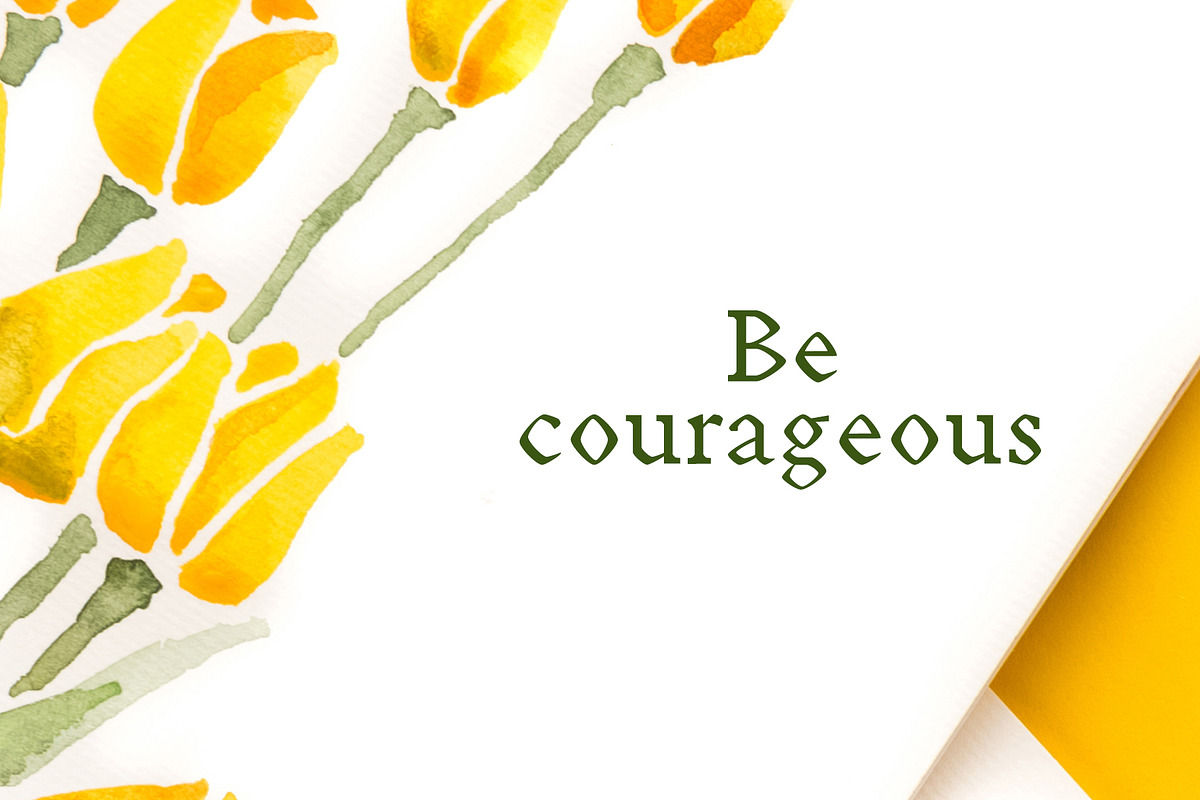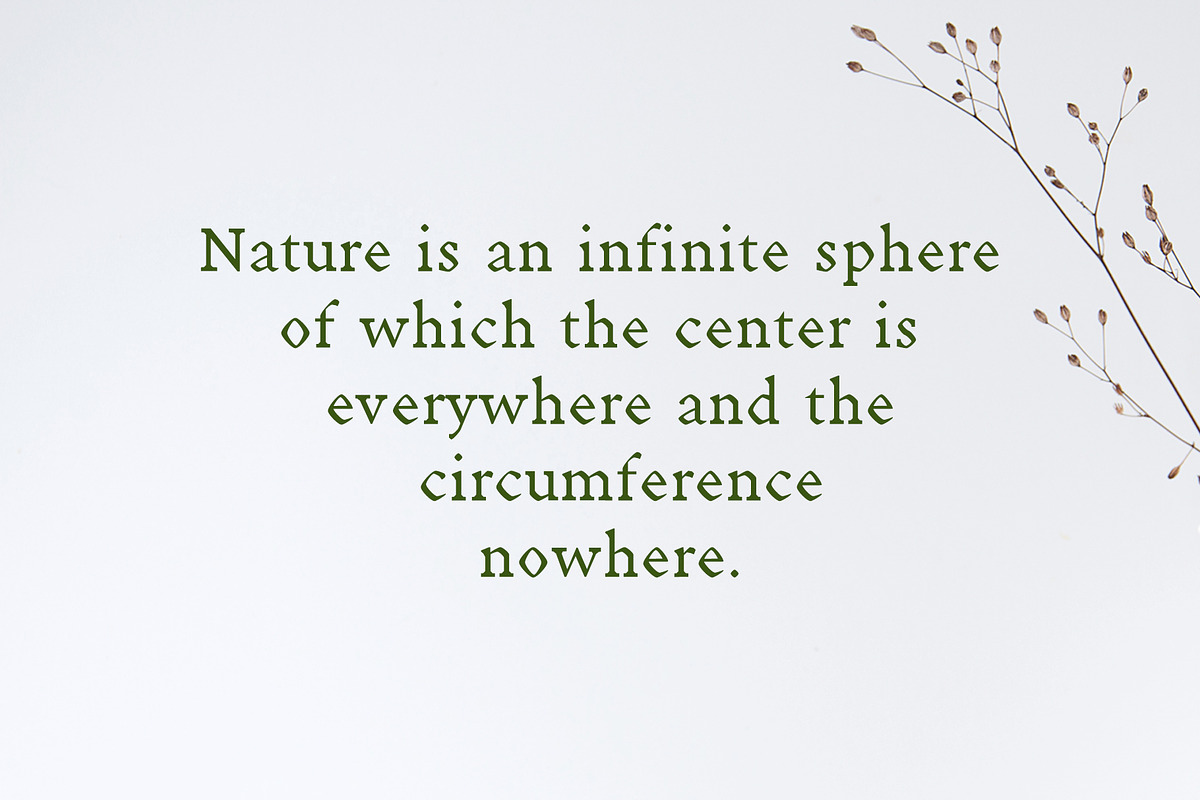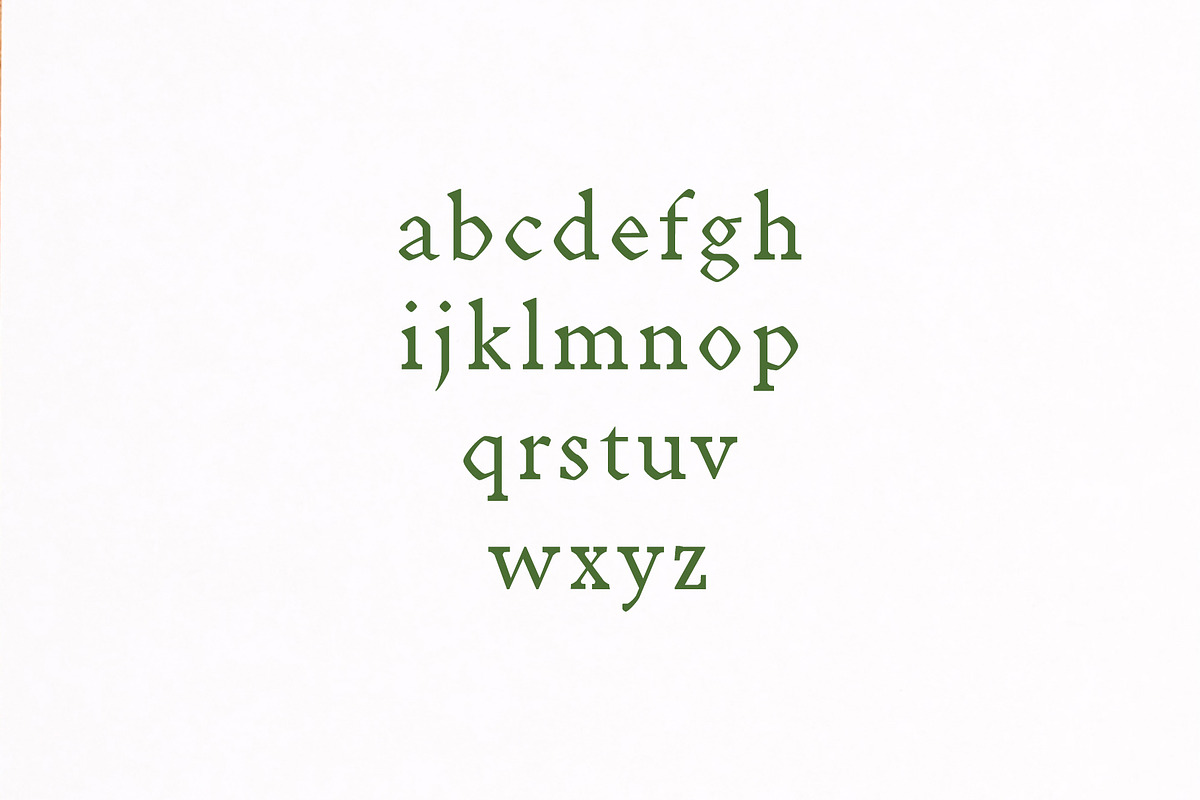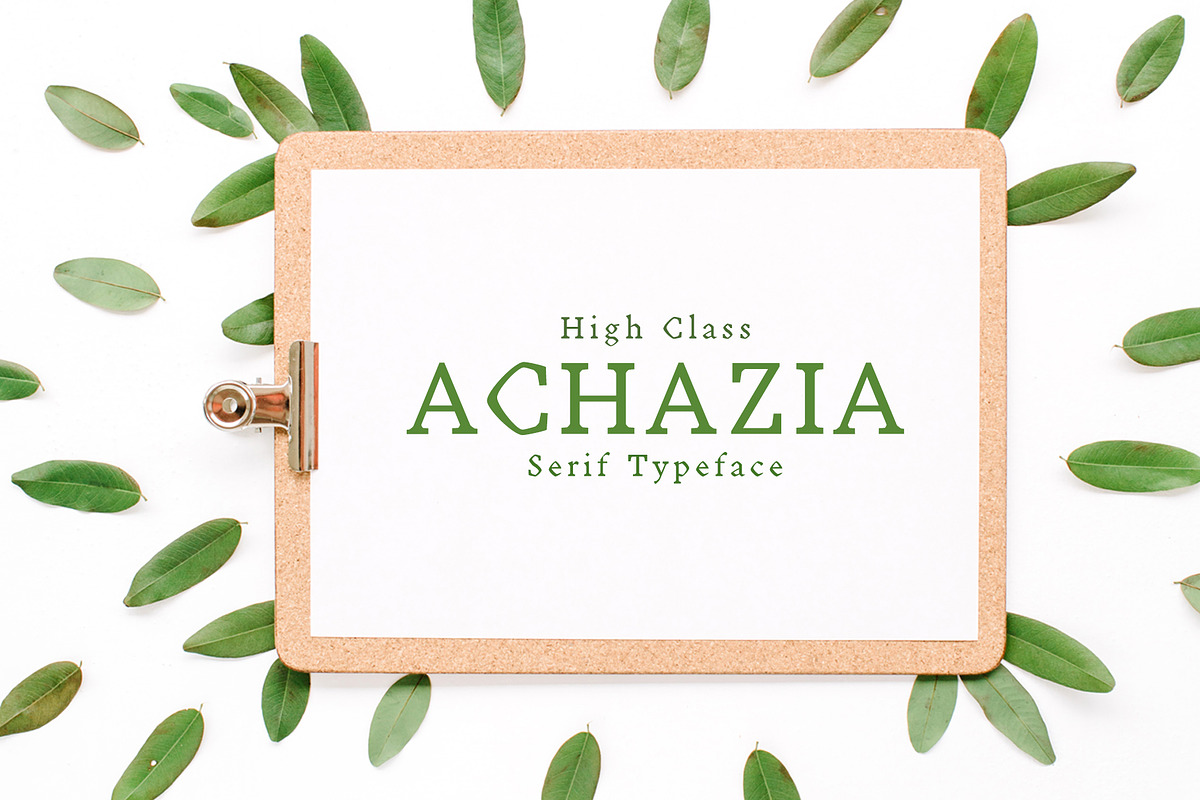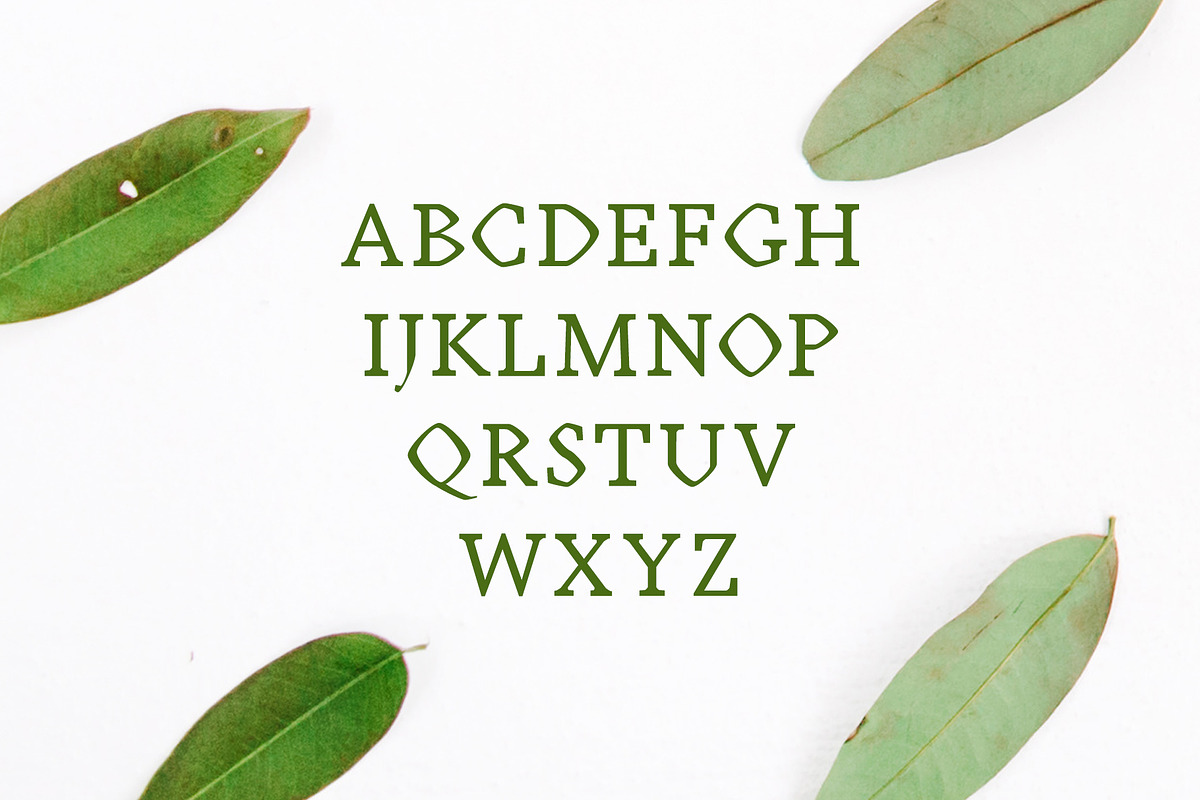
Achazia Serif Font Family Pack
Achazia Serif Premium Font Family is a decorative serif font family, which contains 4 weights and It features unique and modern serif look and feel. Perfect for gorgeous logos, titles, web layouts and branding. It looks gorgeous in all caps with a wide-set spacing if you want to try a classy look, or beautiful on its own in capital and lowercase letters for something completely timeless.
Font Weight: Regular, Medium, Distorted and Bold